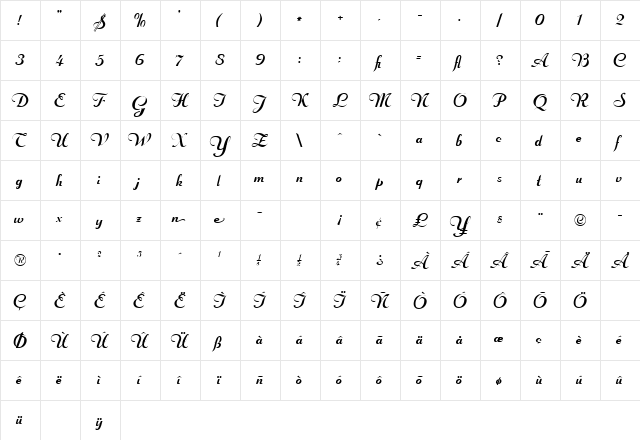
RechtmanSolid Regular
Design Context for RechtmanSolid Typeface
RechtmanSolid is a composed and adaptable typeface that performs quietly and consistently across a wide range of design contexts.